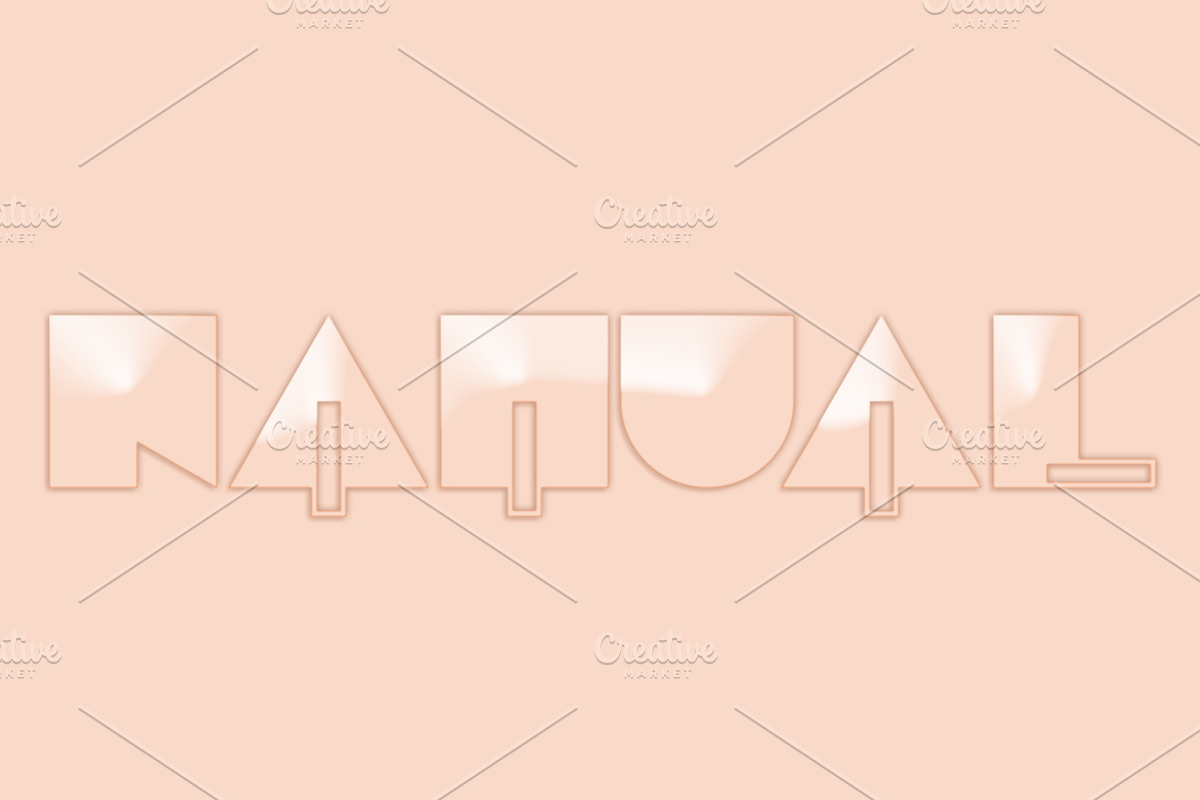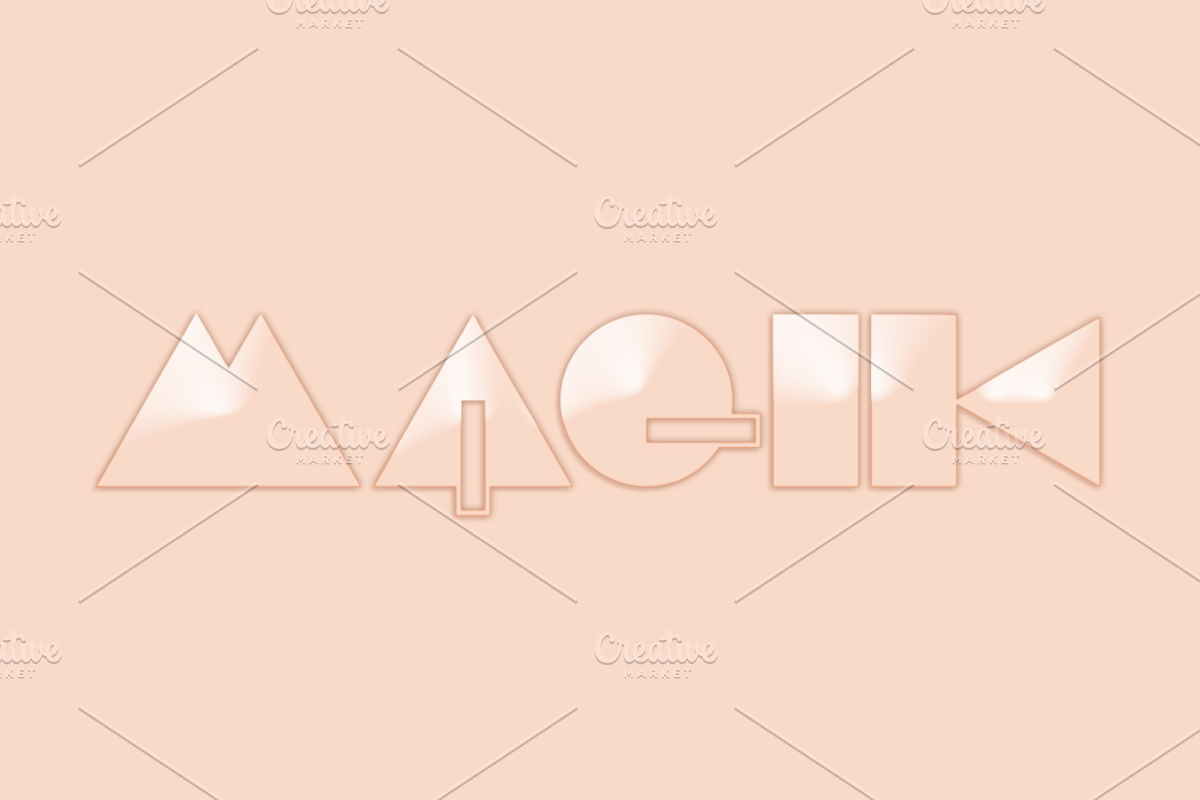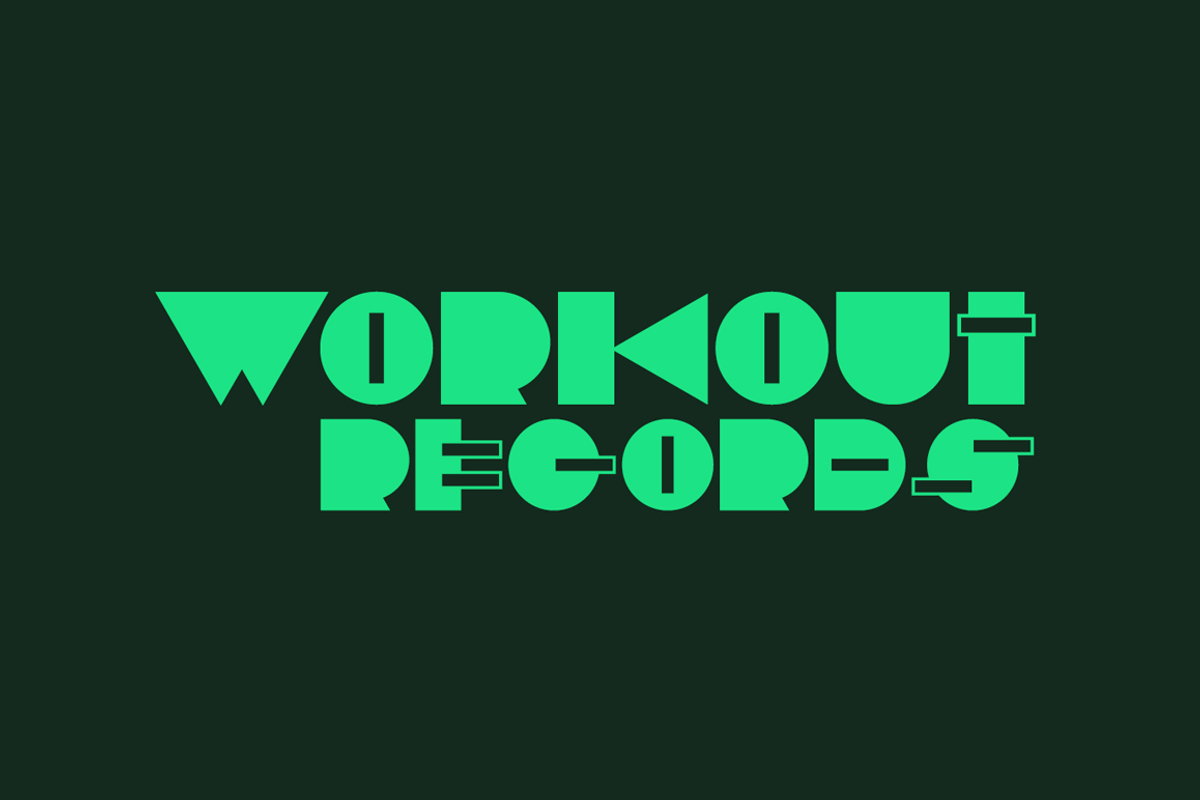
Magik Font
Magik Font by Hello Mart is a font selected for branding, posters, packaging, typography.
Why Magik Font is worth a look
Magik Font by Hello Mart fits naturally into Branding, posters, packaging, typography.